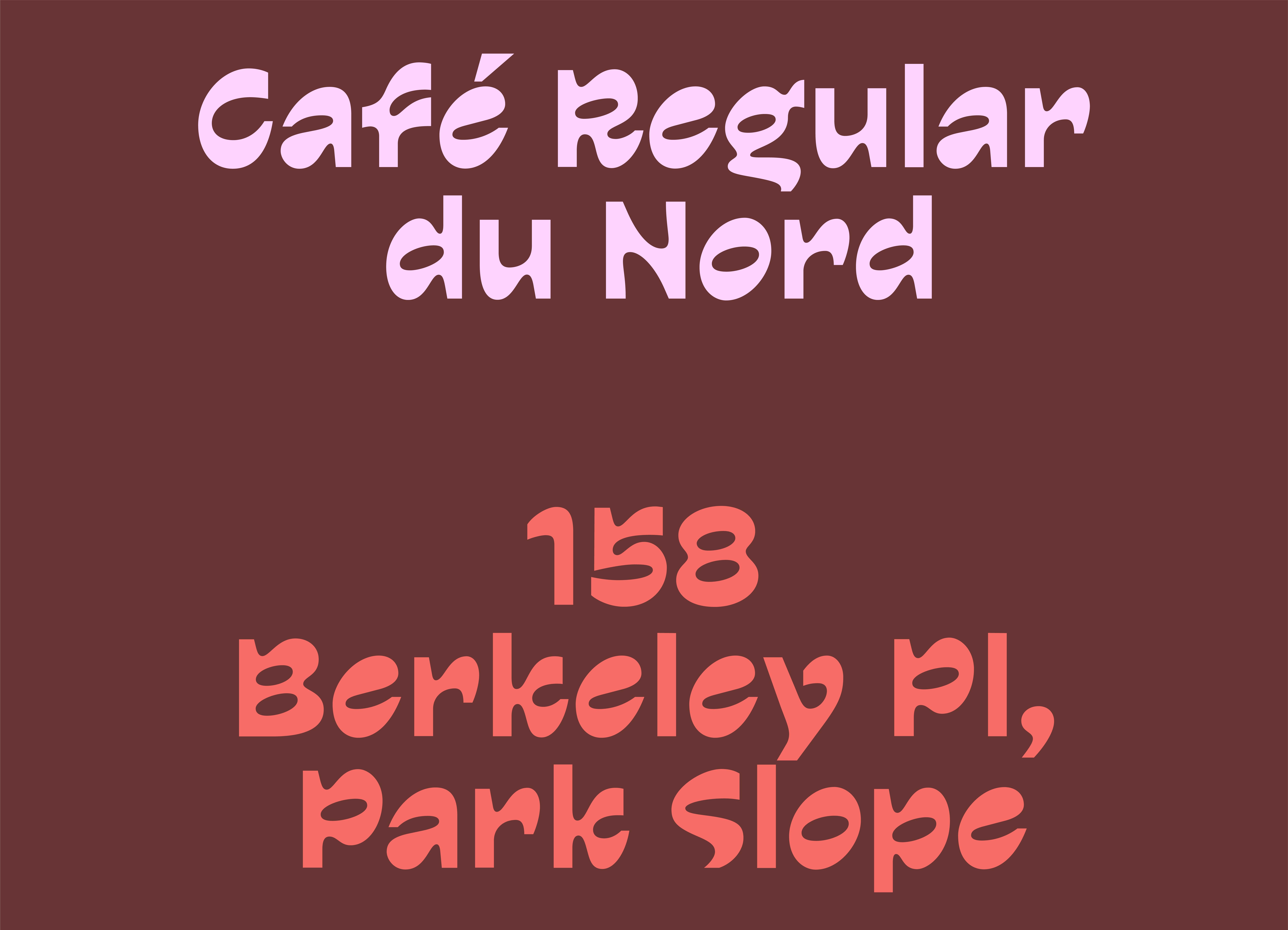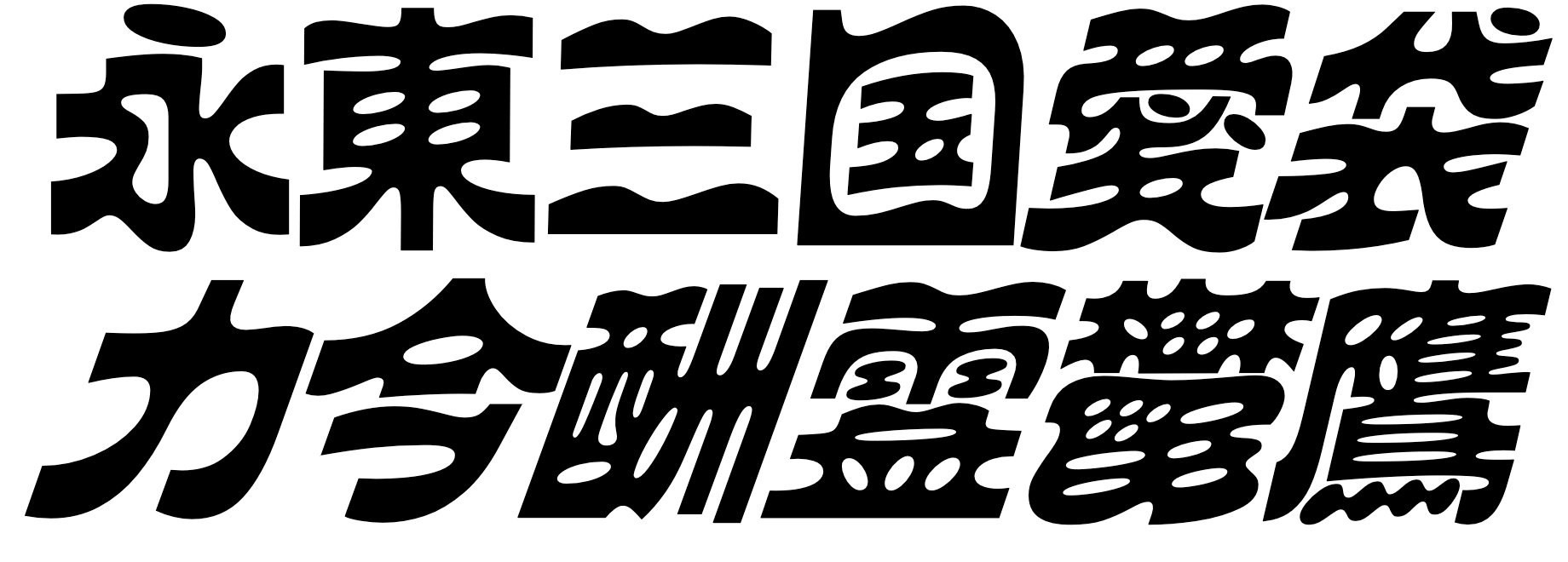
Waverse is inspired by ocean waves and currents. With its rounded corners and subtle slant, Waverse evokes a gentle, continuous wavy rhythm along the x-height, reminiscent of the undulating waves of the sea. The contrast between the straight stems and the curvilinear rounds gives the typeface a distinct character, as if it's shaped by the movement of the water.
It is a reverse contrast typeface that has an open and airy look. The filled-in ’a’ and ’e’ allows more visual space in the counter, seamlessly integrating with the other letterforms to form an enchanting pattern. The cut-off ’g’ and ’s’ avoid the cramped structure that is commonly seen in reverse contrast typefaces. This feature further enhances the overall airiness of the typeface.
It comes with two different italic style: Breezy and Windy, each reflecting varying wind strengths. It also comes with variable fonts, allowing users to adjust the wind level (italic angles) as needed.
Waverse is optimally displayed at both large and medium point sizes and is great for branding projects.
3 Style + Variable
- Waverse Regular
- Waverse Breezy
- Waverse Windy
- Waverse Variable
3 styles + Variable
Regular, Breezy, Windy, Variable - Opentype Features